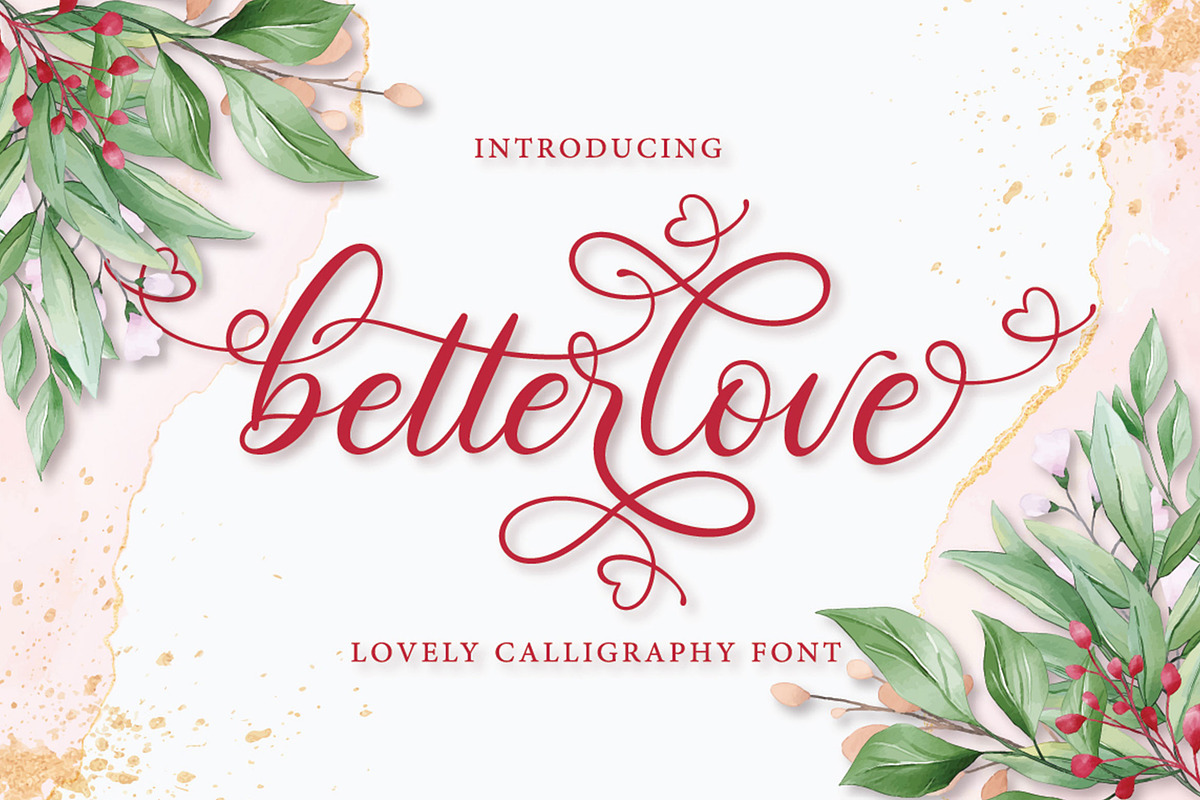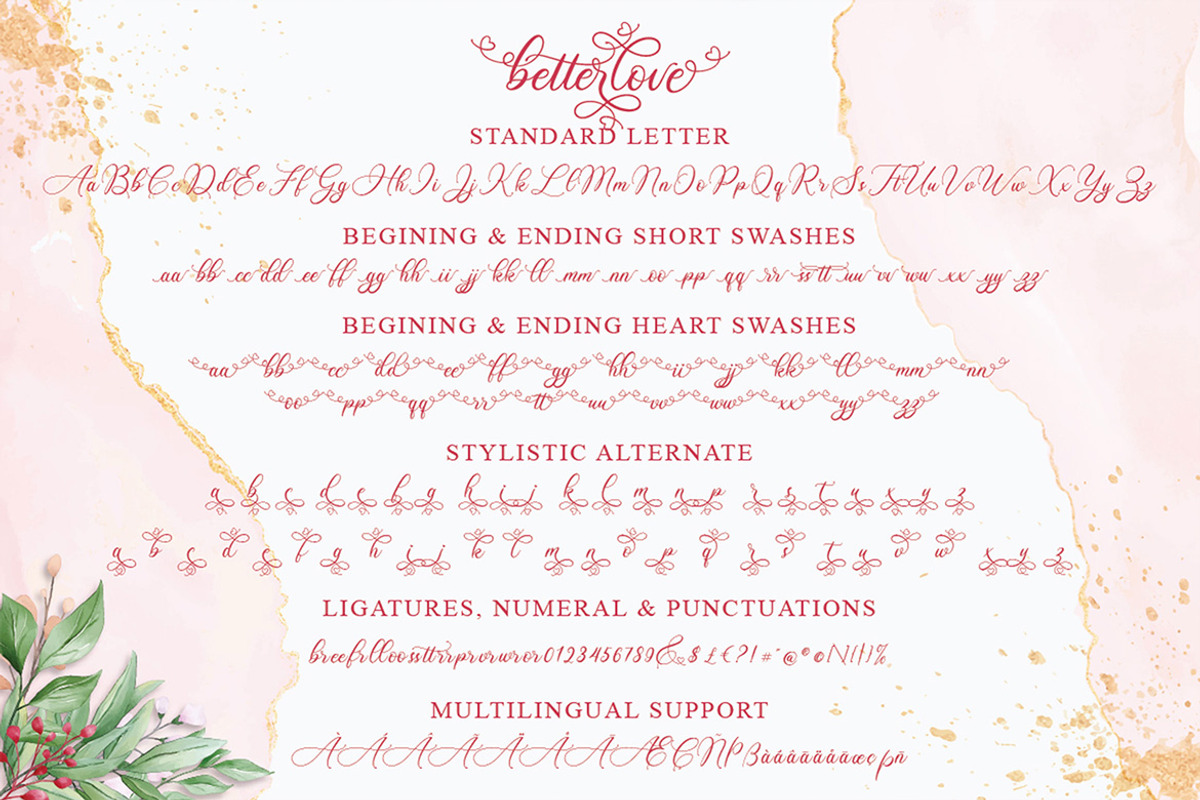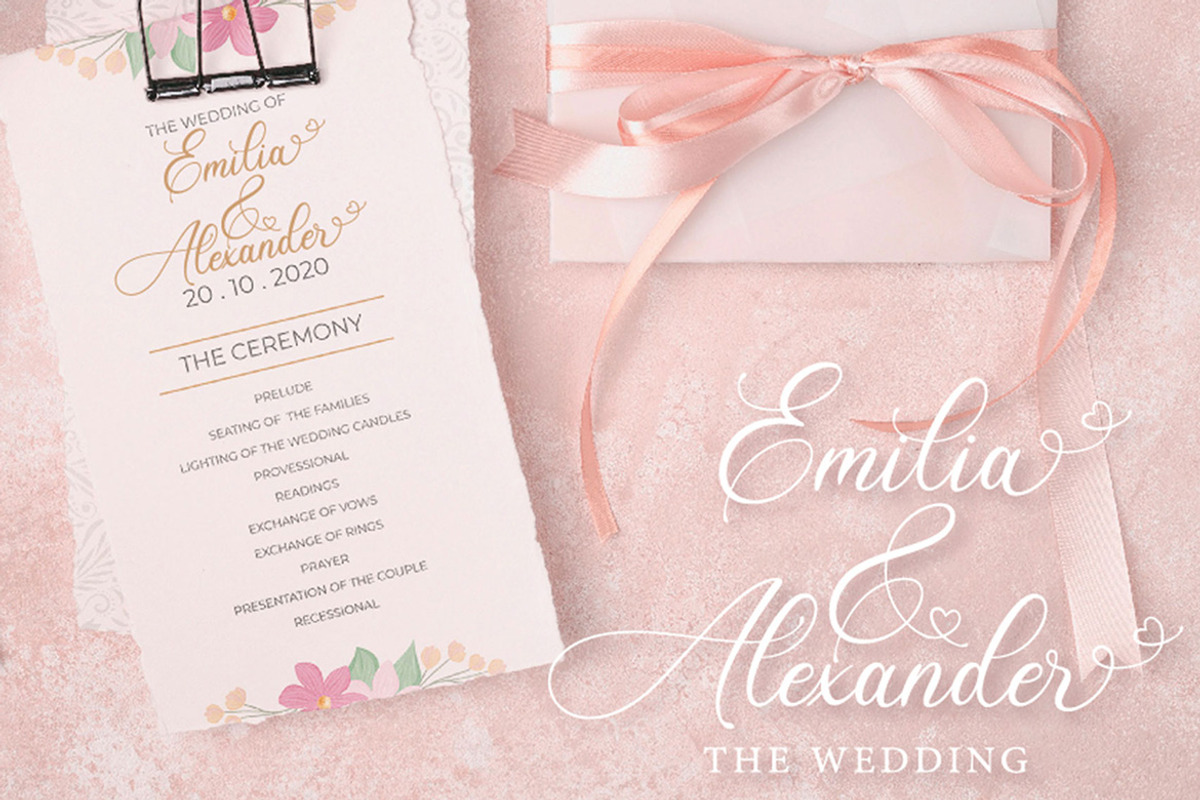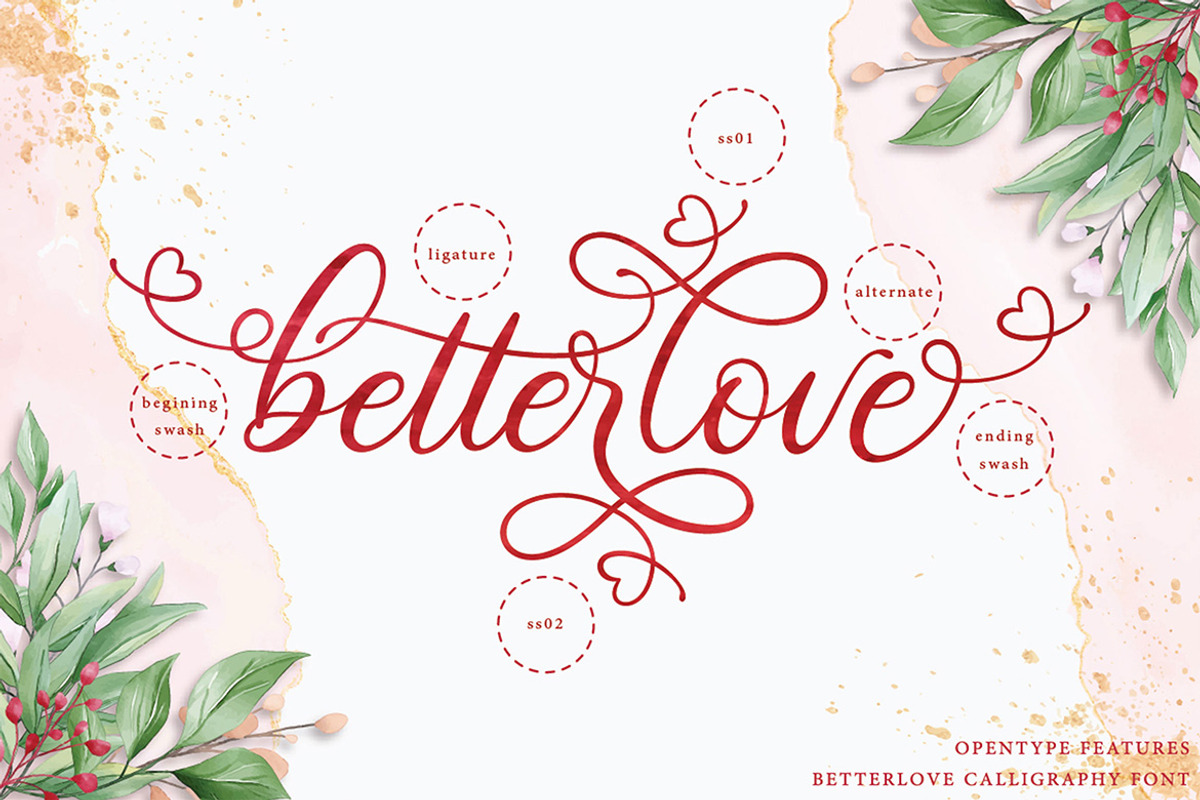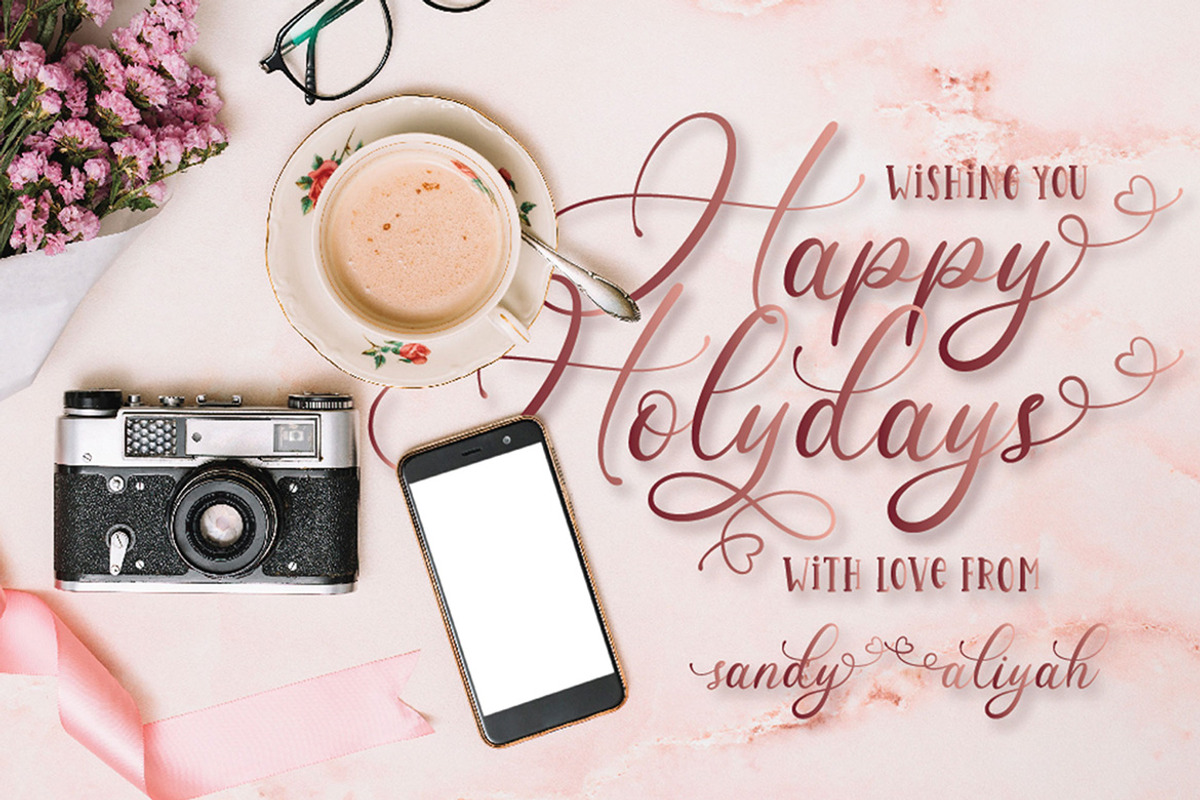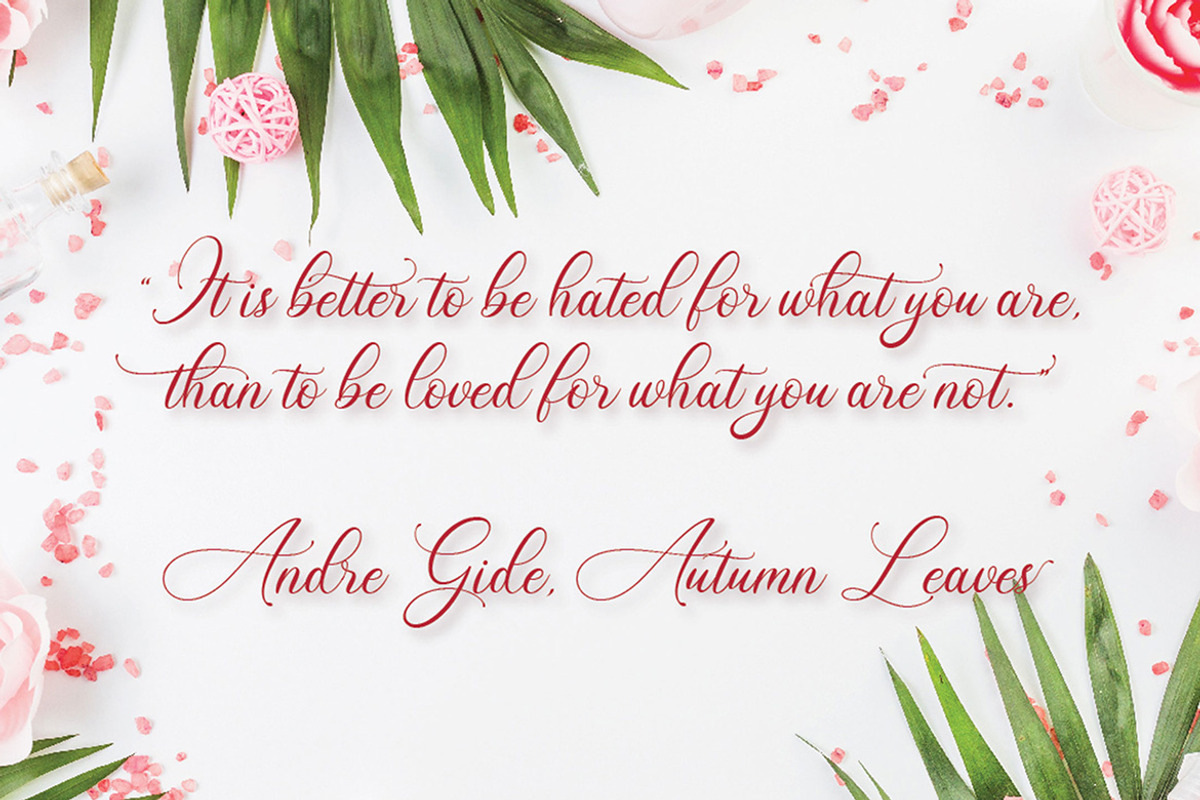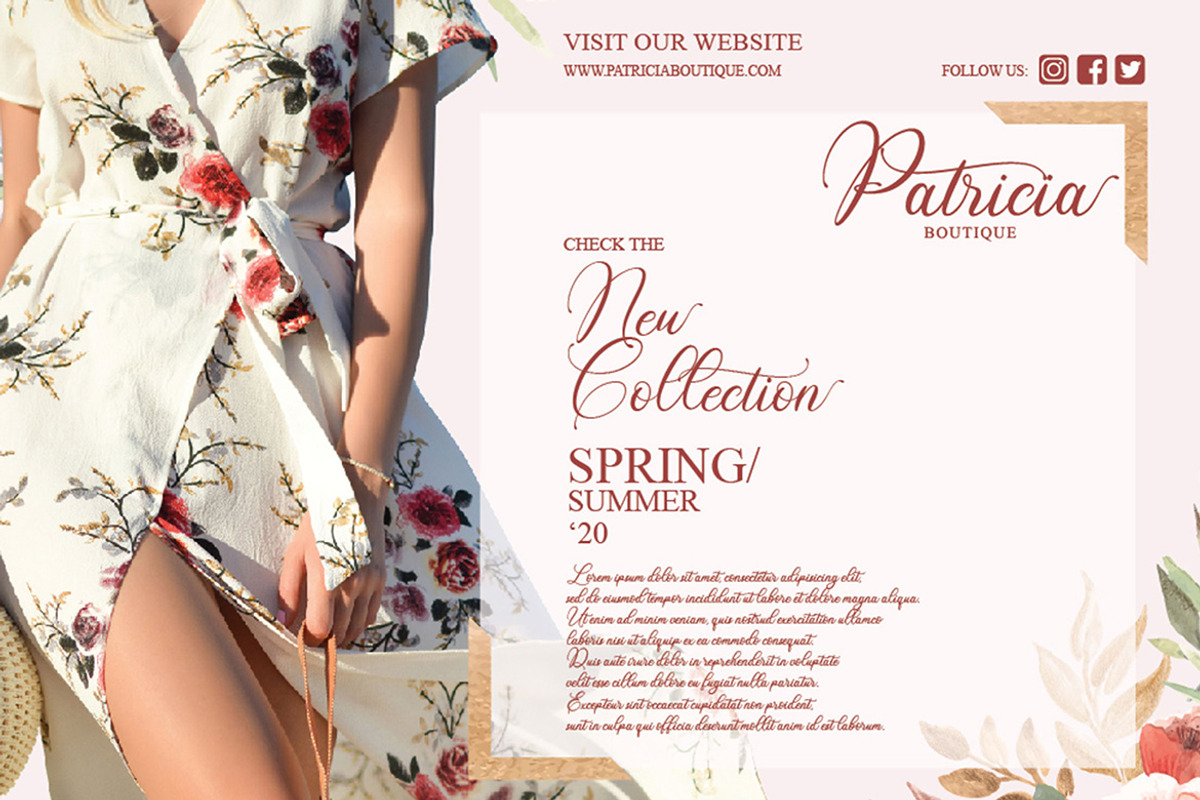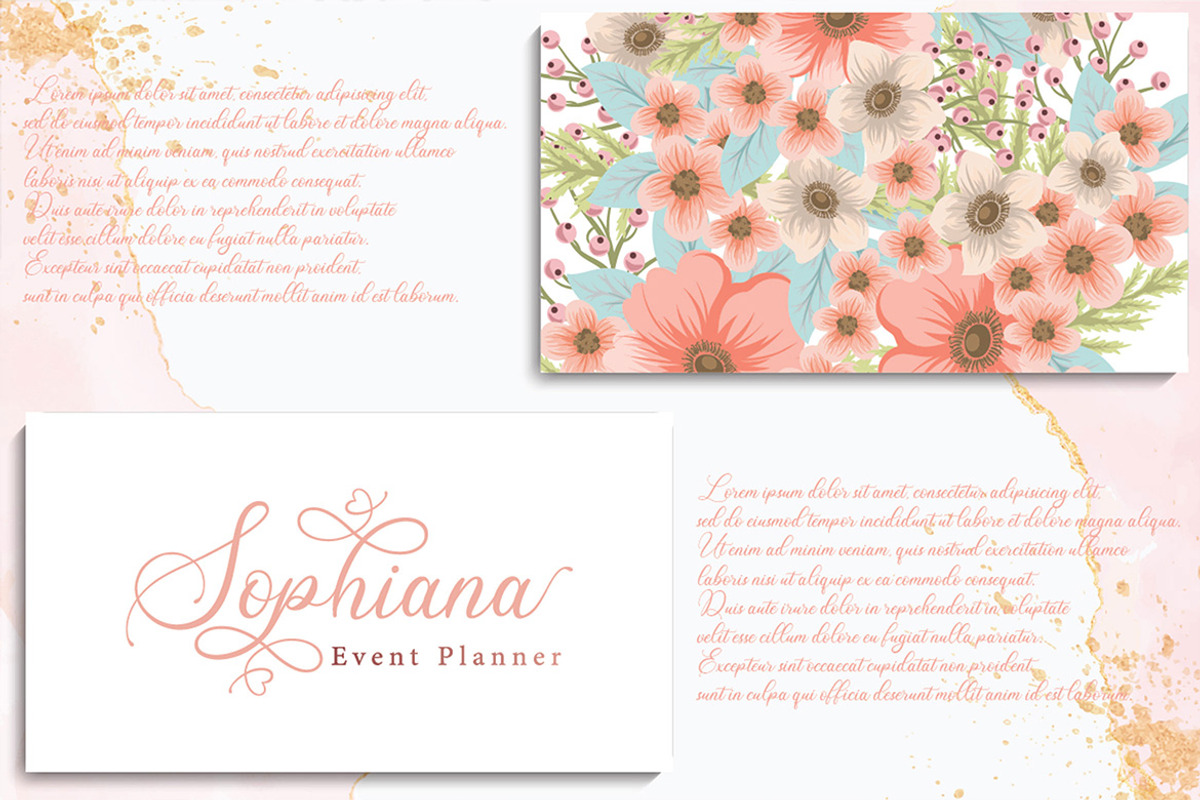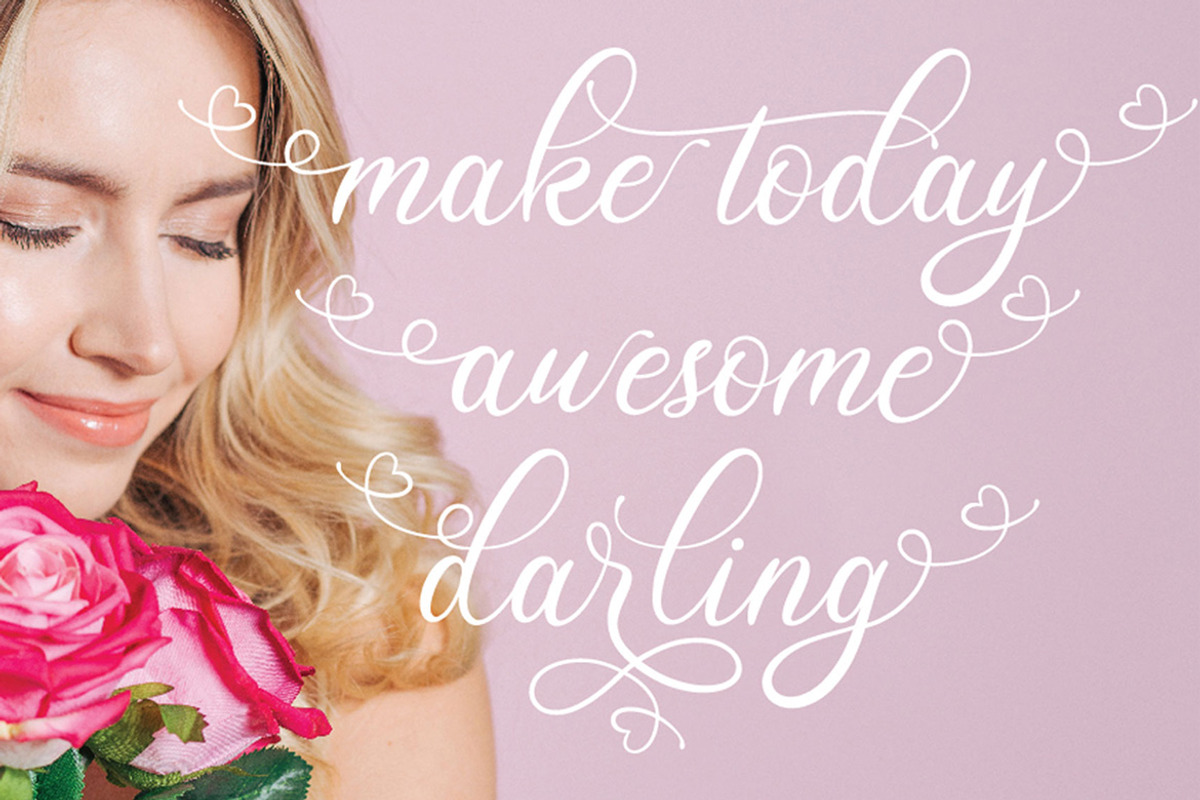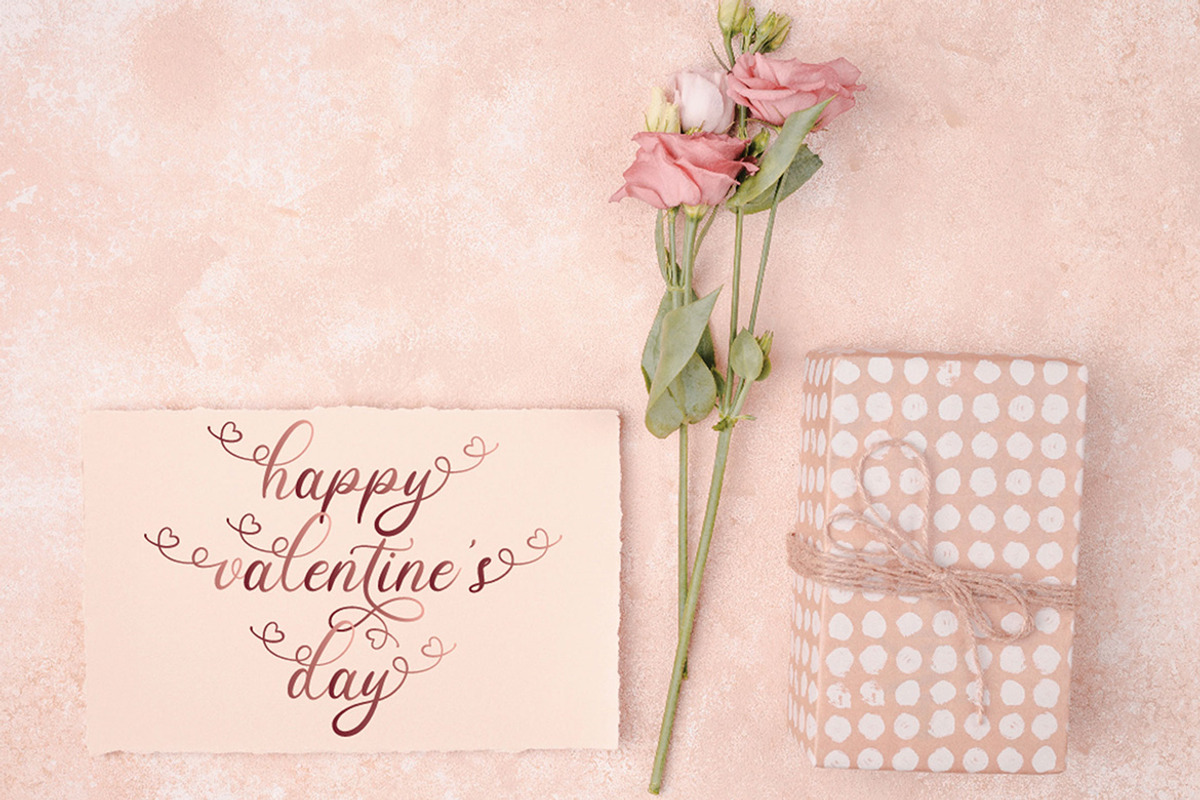
Betterlove Calligraphy
Betterlove Calligraphy is a lovely calligraphy that bring luxury feel. The natural hand writing script is suitable for you who needs a typeface for headline, logotype, apparel,wedding invitations, valentines day,branding, packaging, advertising,watermark, etc. This typeface is comes in uppercase, lowercase, punctuations, symbols & numerals, stylistic set alternate, ligatures, etc also support multilingual. The font has smooth texture, so would be perfect for all types of printing techniques+you can do embroidery, laser cut, gold foil etc.